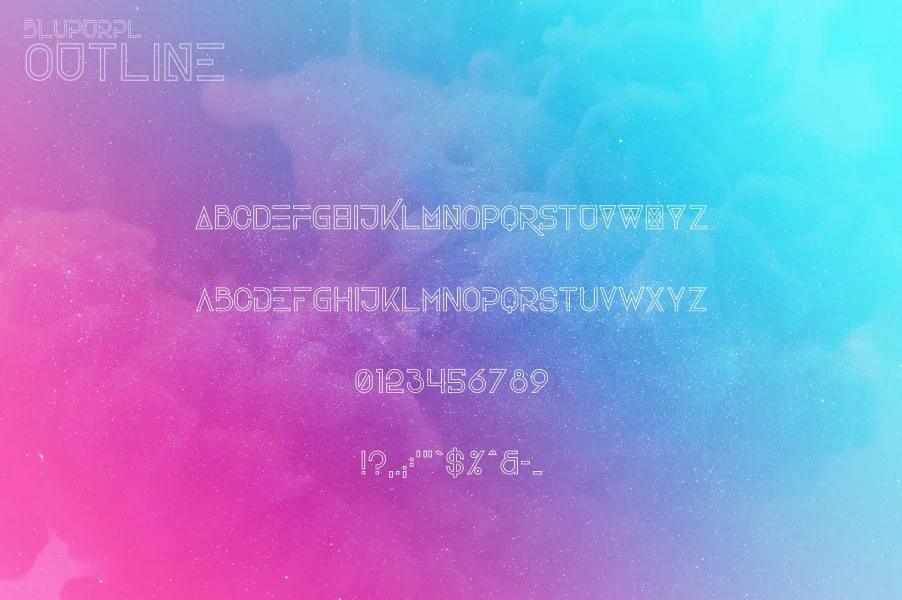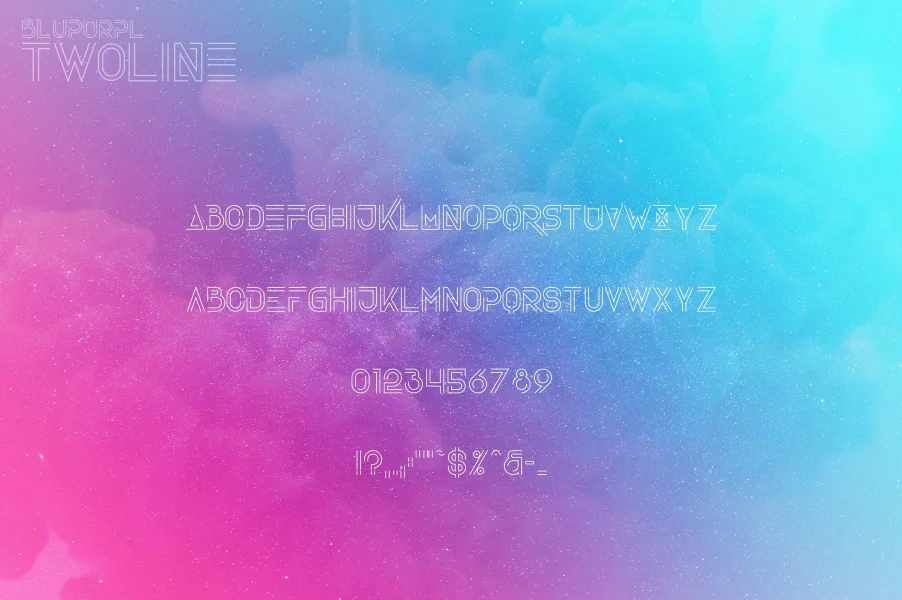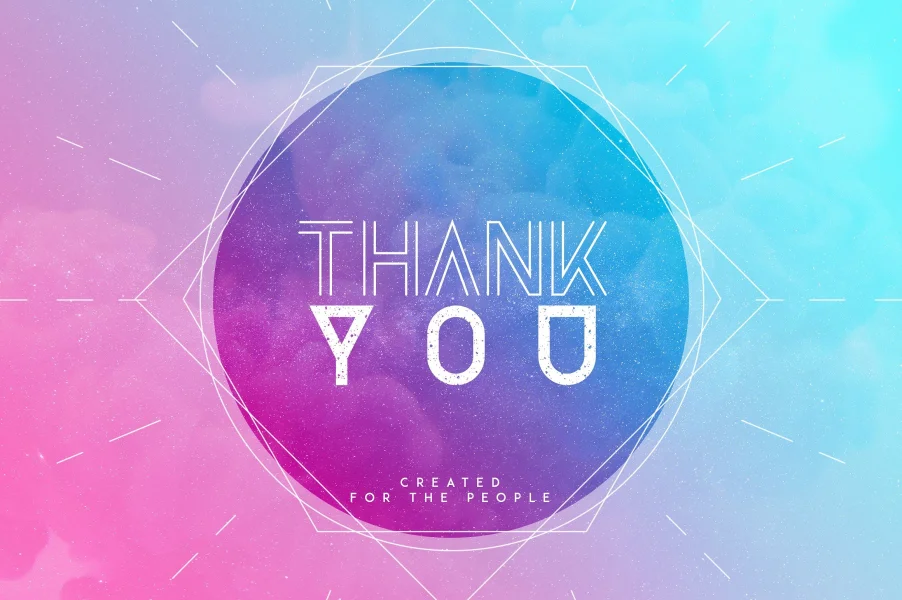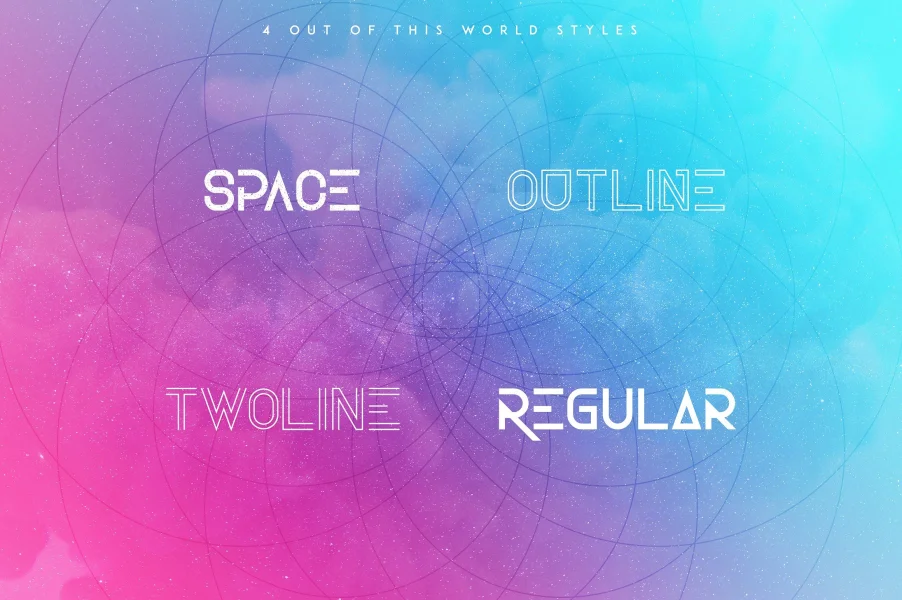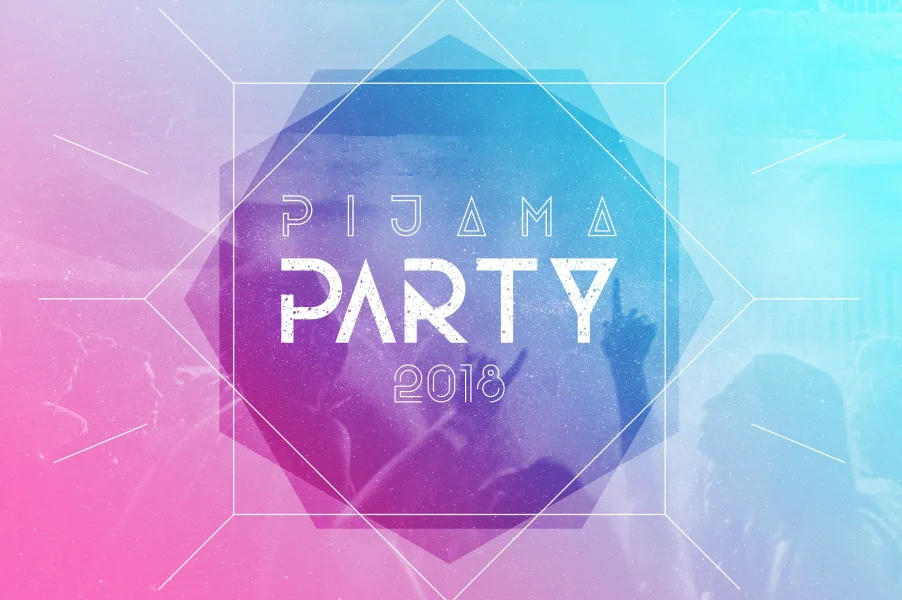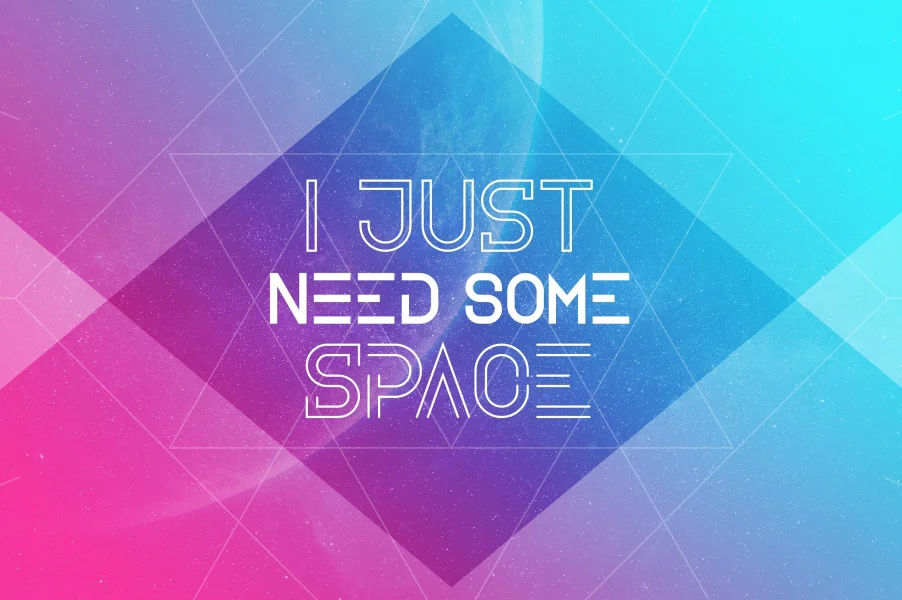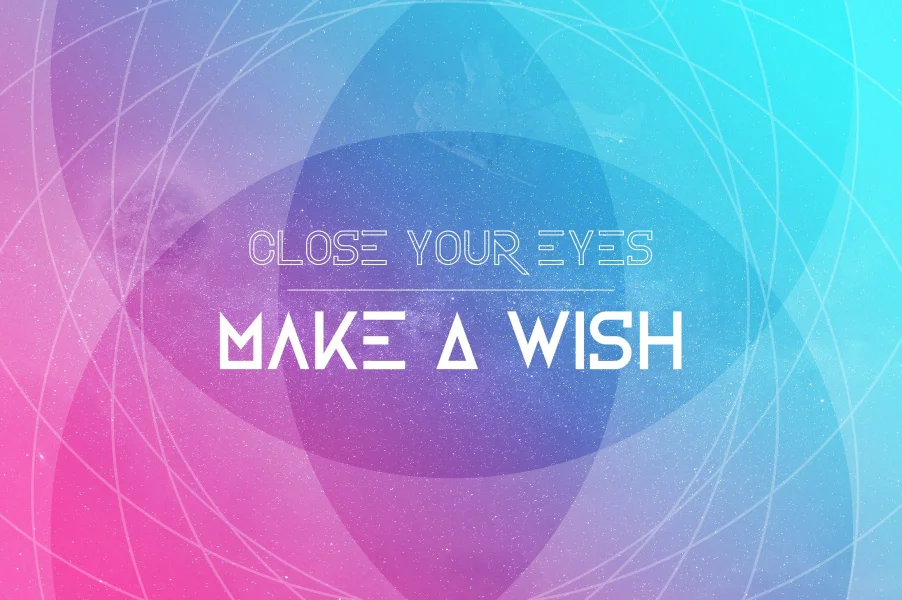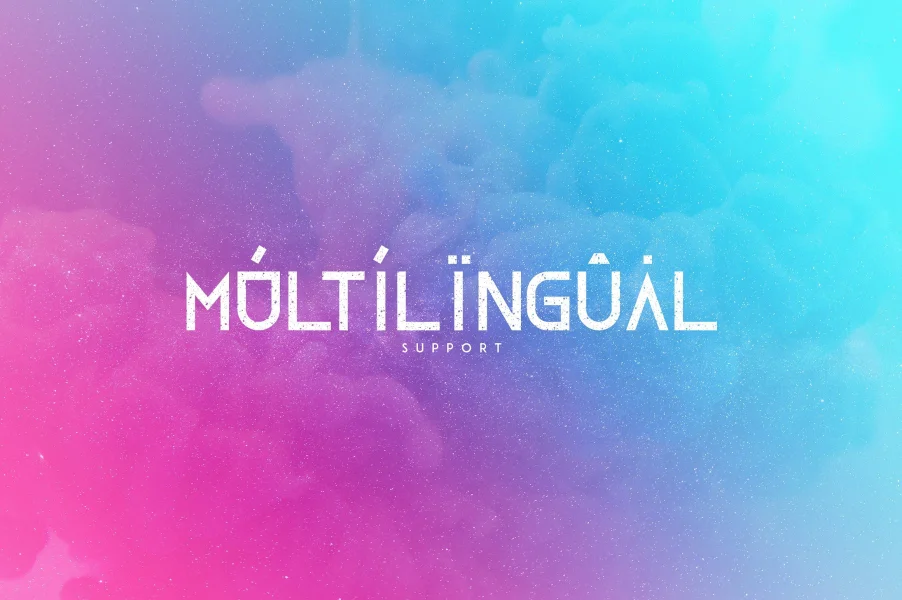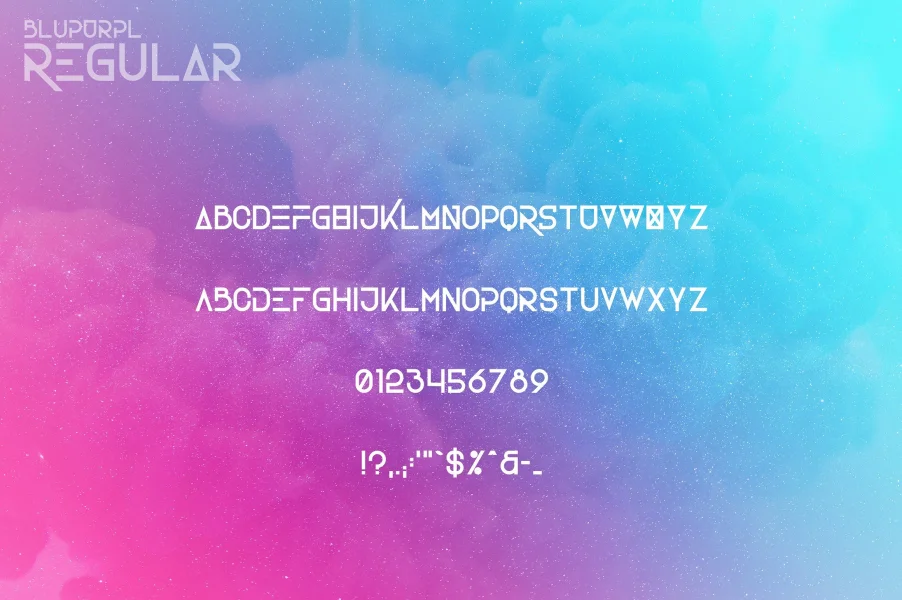
BluPurpl is bold, futuristic sans serif typeface with 4 fonts. multilingual support and extras. It's a very versatile font that works great in large and small sizes.
BluPurpl is perfect for branding projects, home-ware designs, product packaging, magazine headers - or simply as a stylish text overlay to any background image.